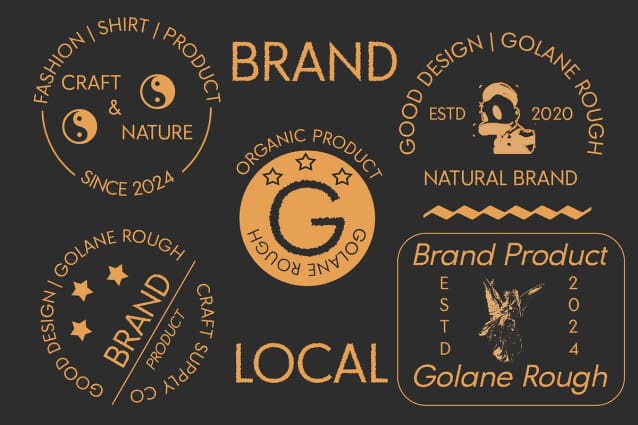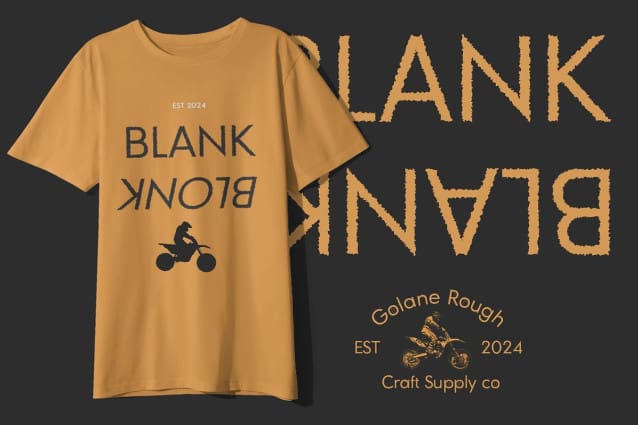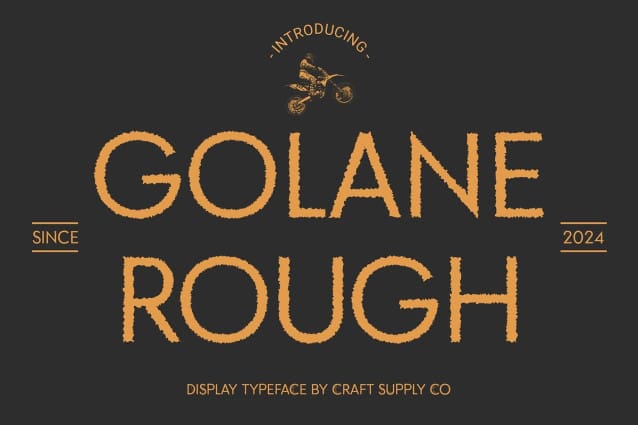
Golane Rough Font
Golane Rough Font: Vintage-Inspired Display Typeface. Vintage Charm in Sans Serif Golane Rough presents a sans serif display font with low contrast, exuding vintage appeal. Its rugged, rough texture adds character and nostalgia to any design project.
Rustic Aesthetic with Rough Effects Crafted with a rustic aesthetic, This font features rough effects that emulate the weathered look of vintage typography. Each character carries an authentic, handcrafted vibe, perfect for evoking nostalgia.
Ideal for Retro Designs Tailored for retro-inspired designs, This font thrives in projects seeking a vintage aesthetic. From posters to branding, its low-contrast sans serif style adds a touch of old-school charm.
Versatile Application Beyond its vintage allure, This font offers versatility in application. Whether used in digital or print media, its rough texture and low-contrast design make it suitable for various creative endeavors.
Embrace Vintage Elegance This font invites you to embrace the elegance of vintage typography with its low-contrast sans serif style and rough texture effects. Perfect for adding character and nostalgia to your design projects, This font is your go-to choice for vintage-inspired creations.